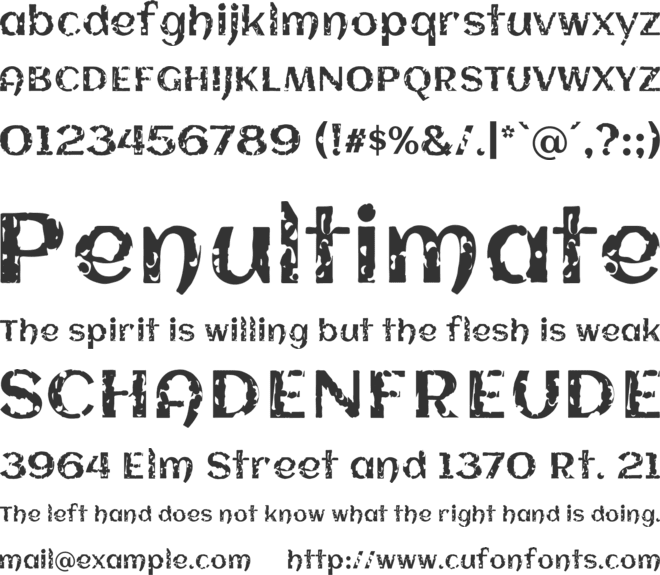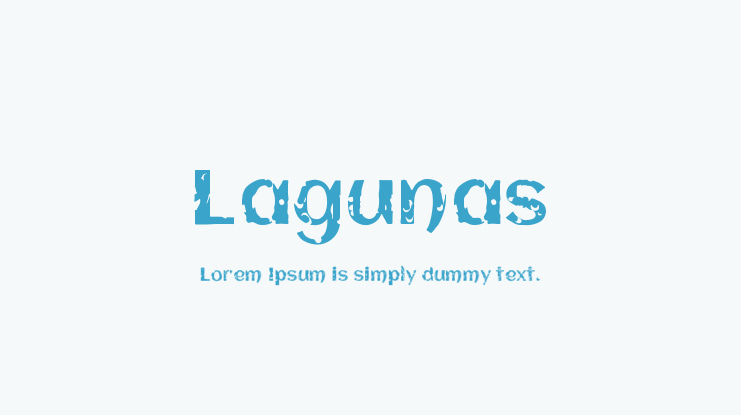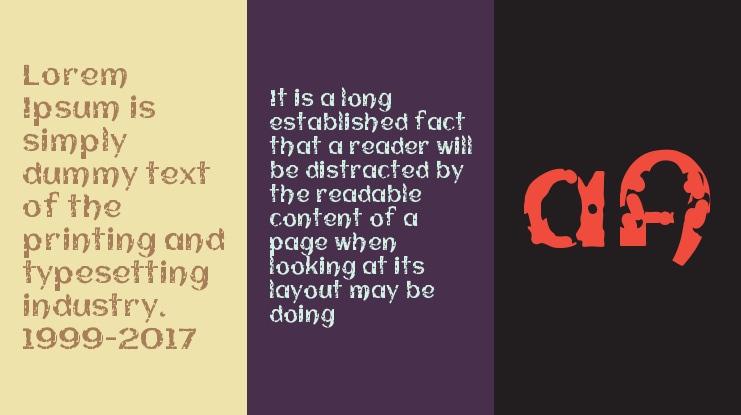
Lagunas Font
Heaven Castro
Lagunas is the latest font that uses the app called "Fonty".
Drawing-based grunged-up styles made for this ugly thing.
This was edited and modified with FontForge after font's generation.